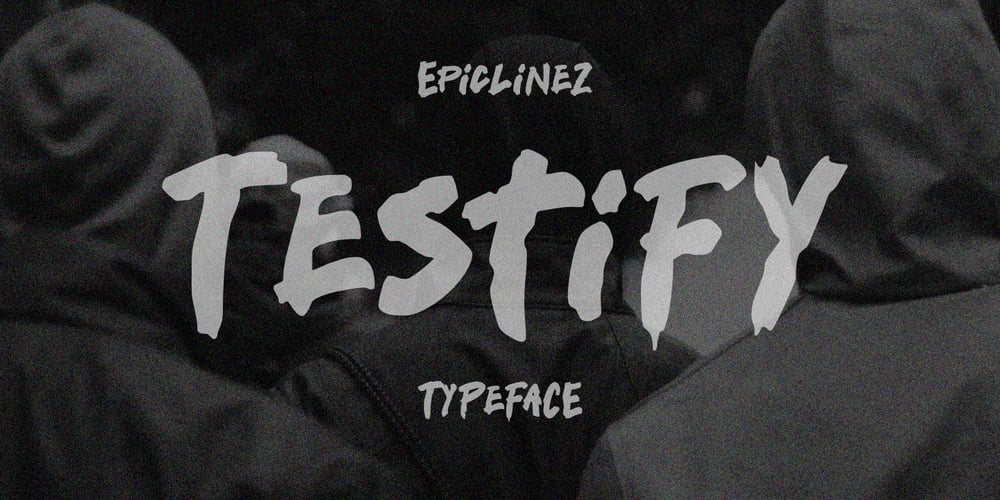
Testify
Testify font
Testify Font Family was designed by Aldy Sidik and published by Epiclinez. Testify contains 1 styles and family package options. Testify is a cool and fun typeface, carefully handcrafted to become a true favorite. Its old school charm makes it appear wonderfully down-to-earth, readable, and ultimately, incredibly versatile. Testify will look outstanding in any context, whether it’s being used on busy backgrounds or as a standalone headline!This font is supporting Multi-Languages, which includes: Afrikaans Albanian Catalan Danish Dutch English Estonian Finnish French German Italian Norwegian Portuguese Spanish Swedish Zulu.